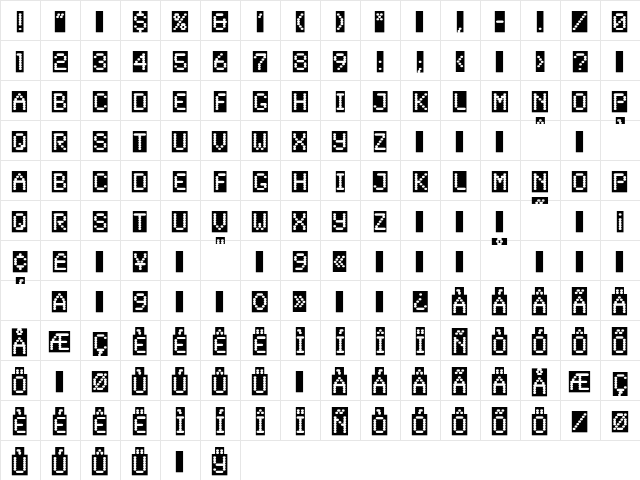
Complete SandersDFiveOpti-Reverse Regular glyph index. Displaying only characters natively supported by SandersDFiveOpti-Reverse Regular font.
SandersDFiveOpti-Reverse is a composed and adaptable typeface that performs quietly and consistently across a wide range of design contexts.